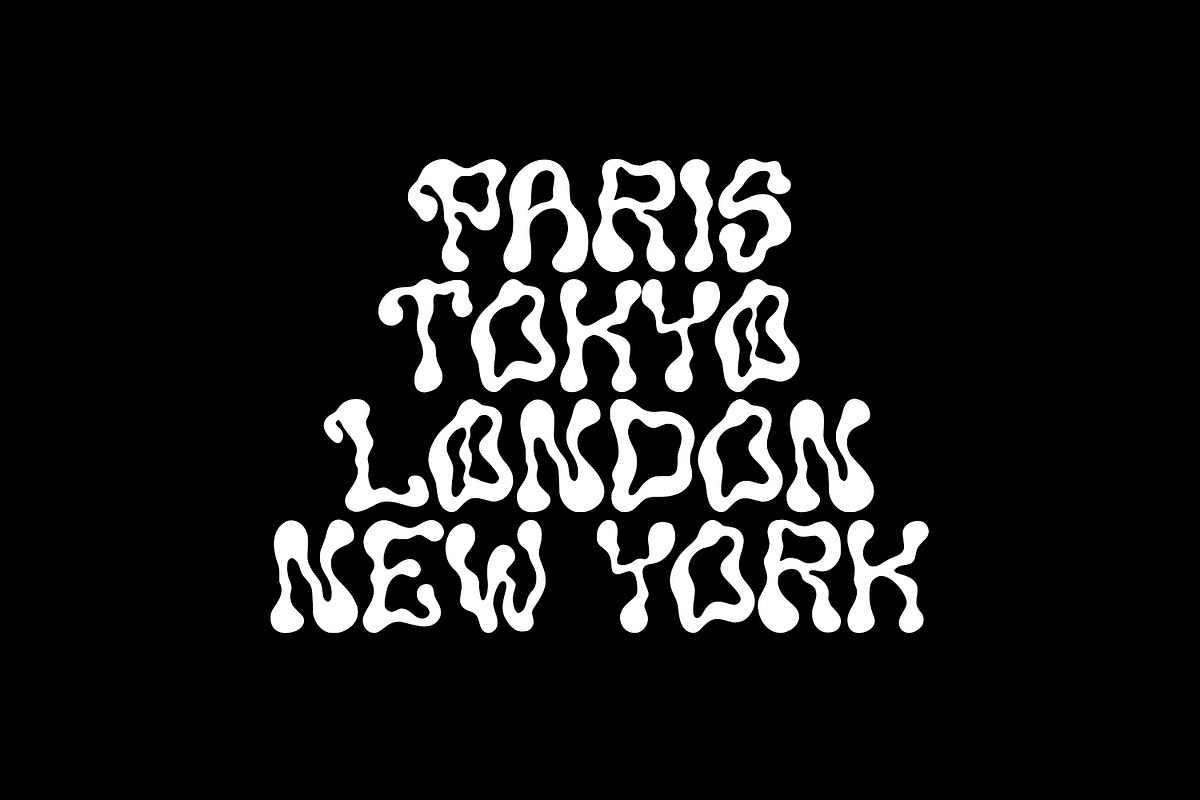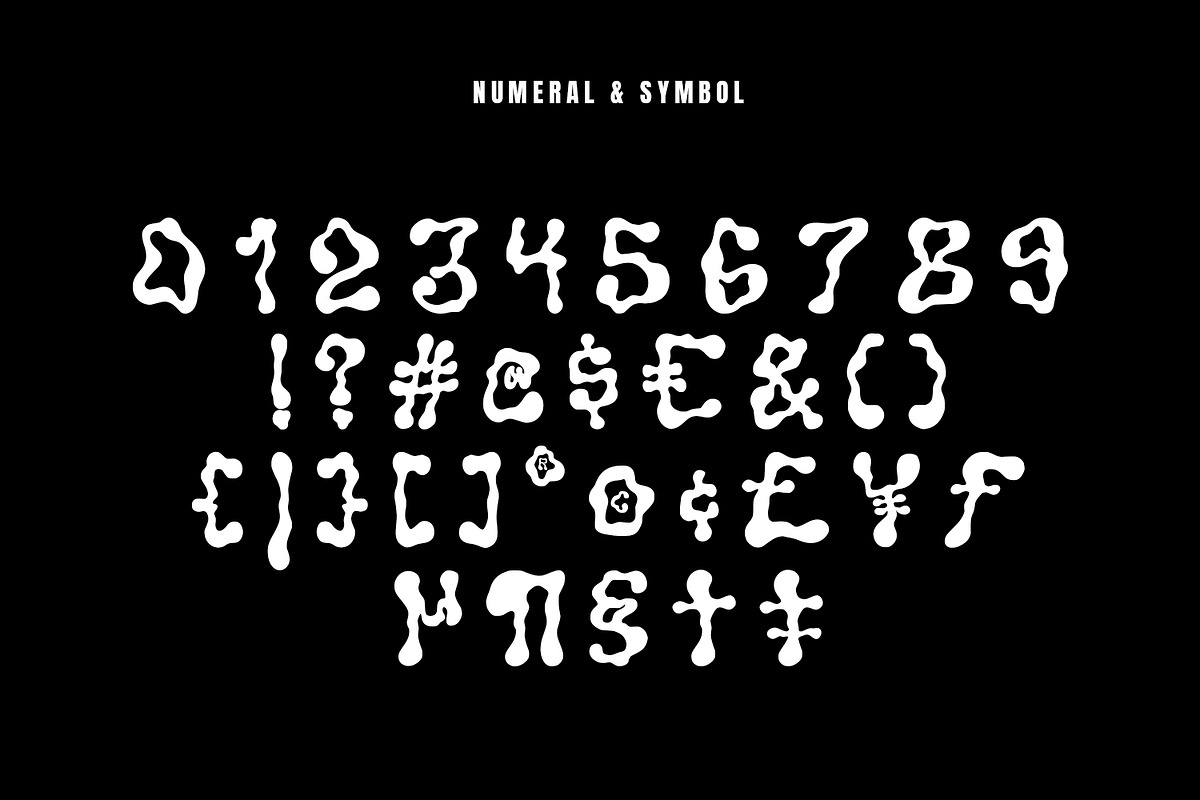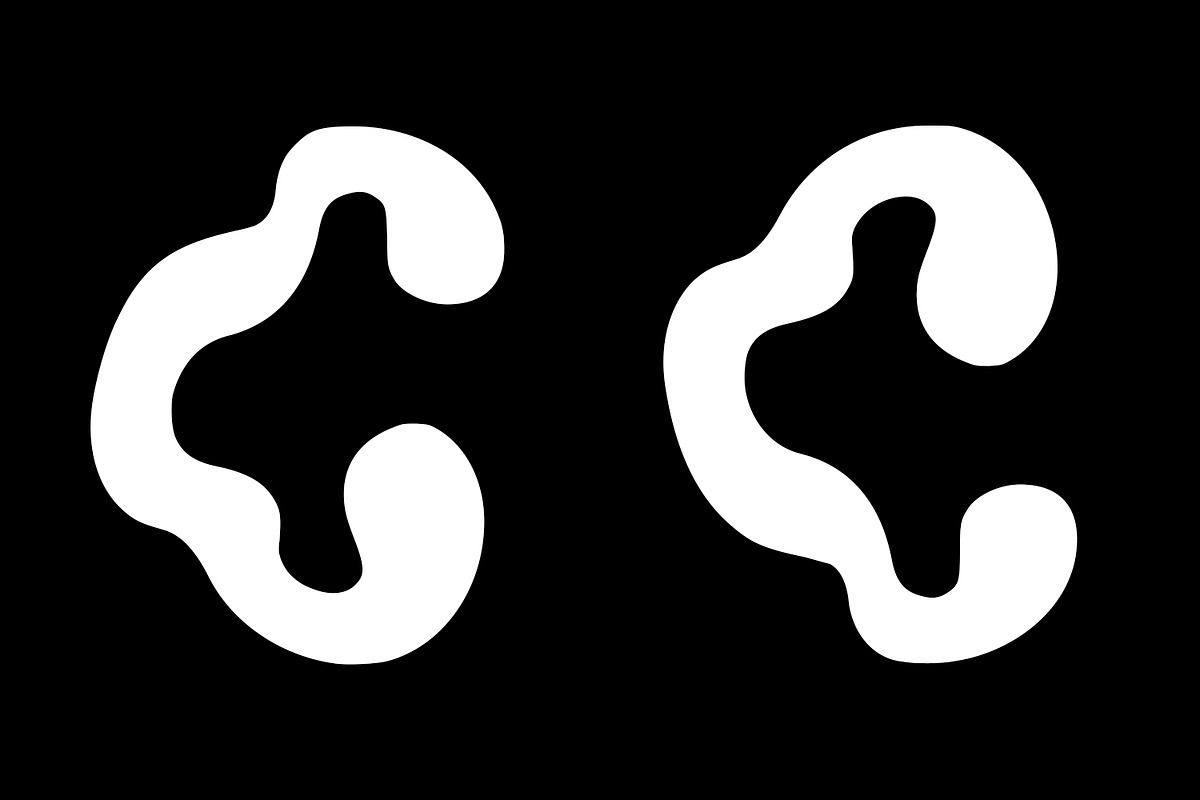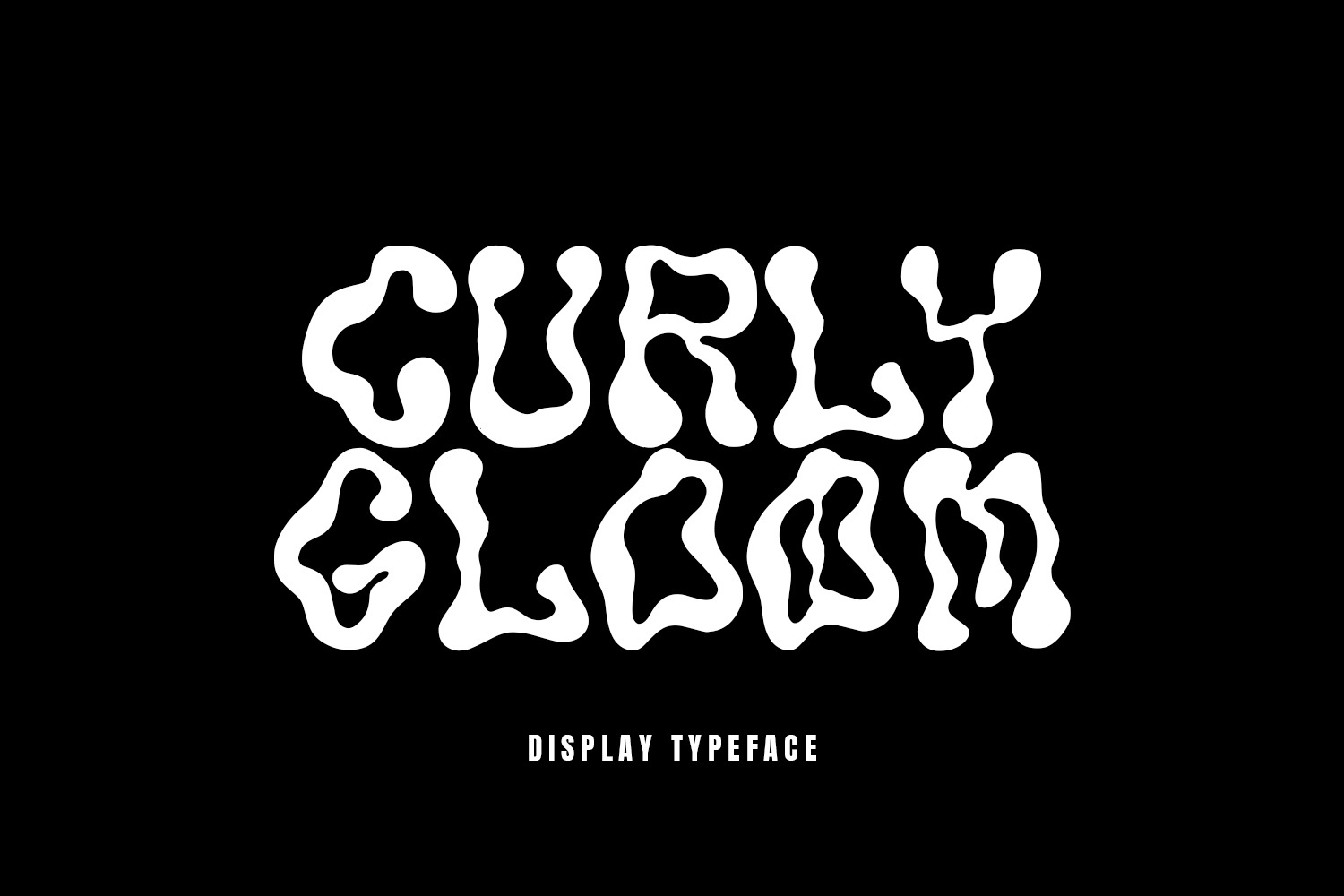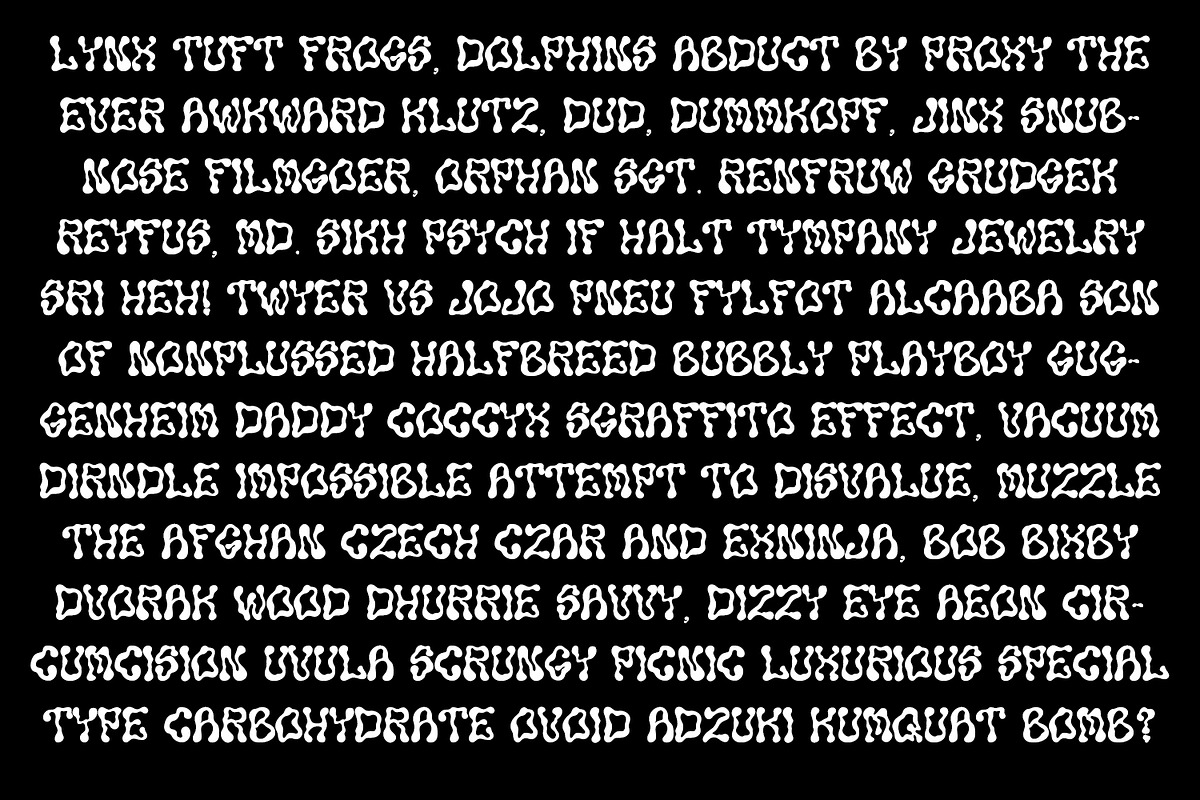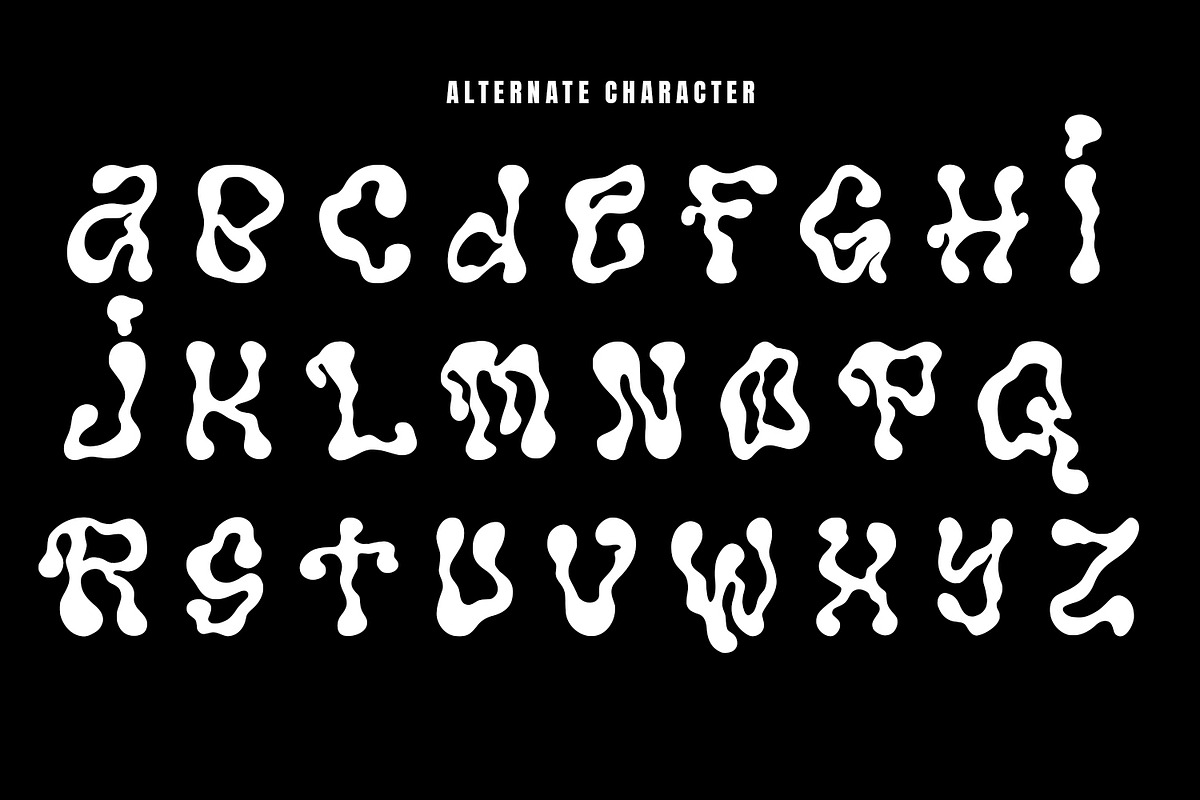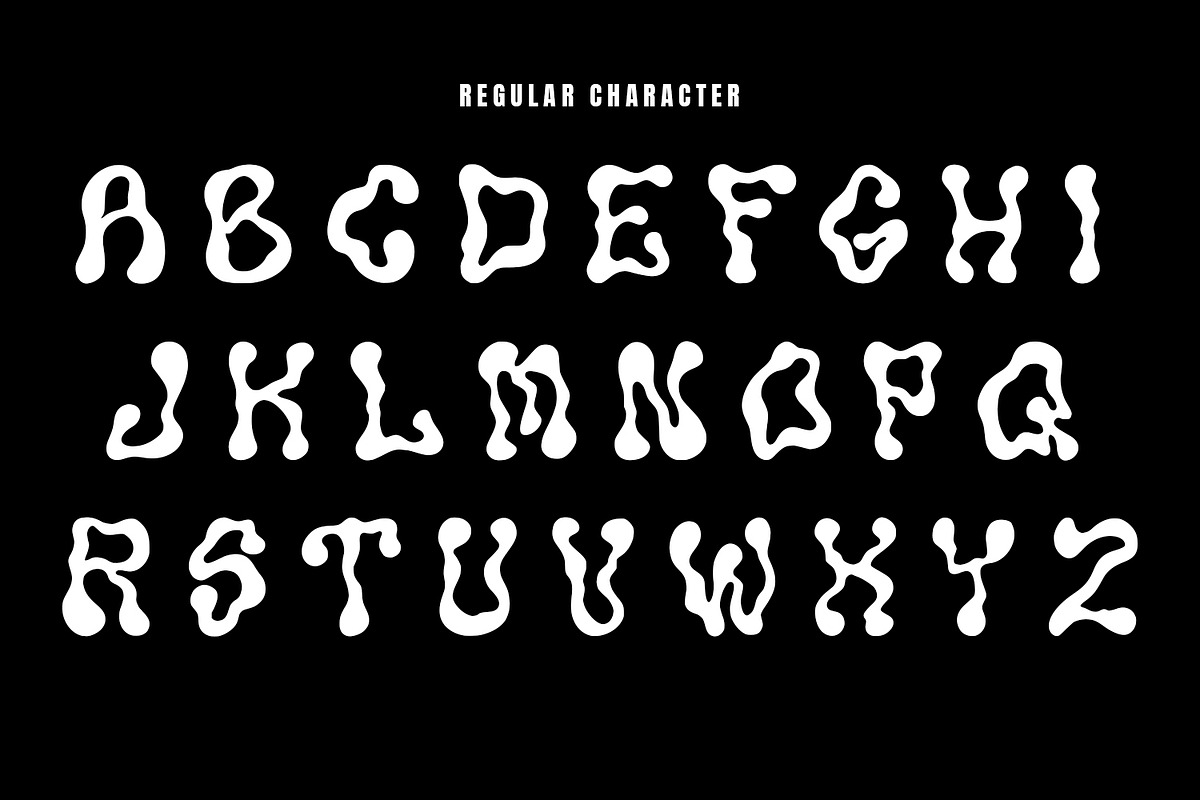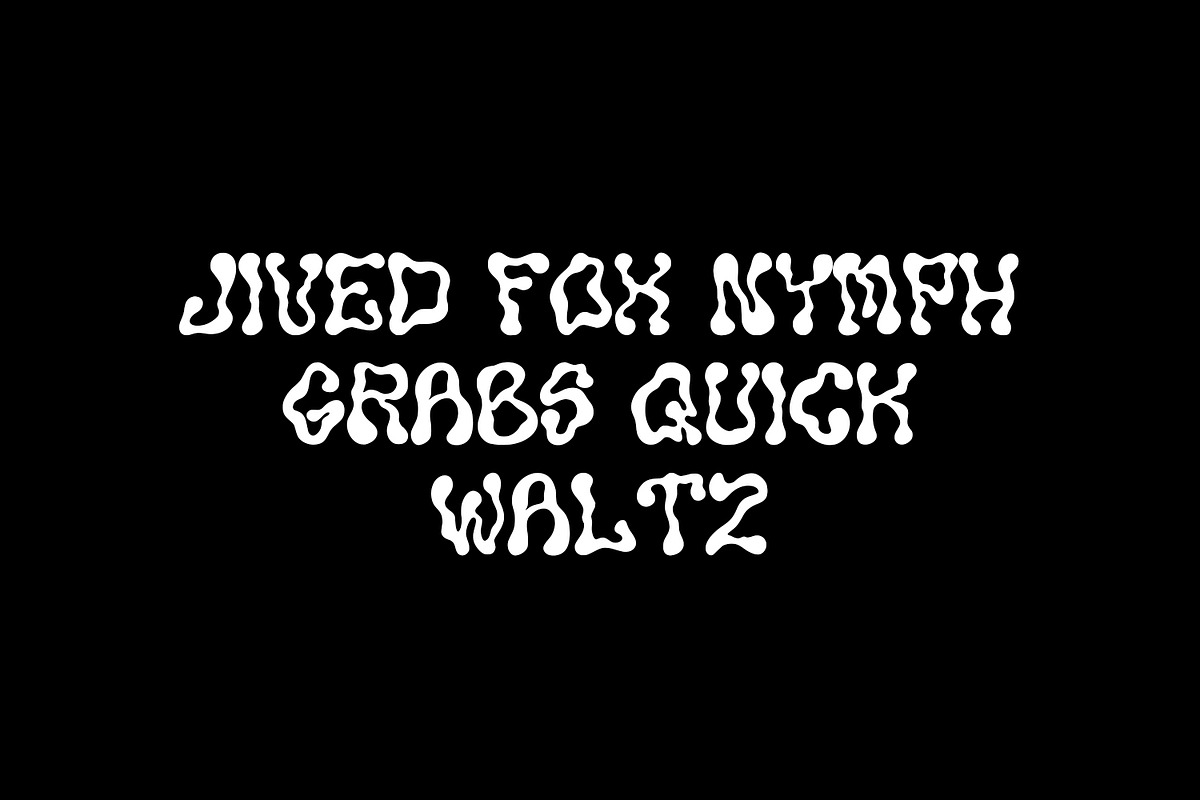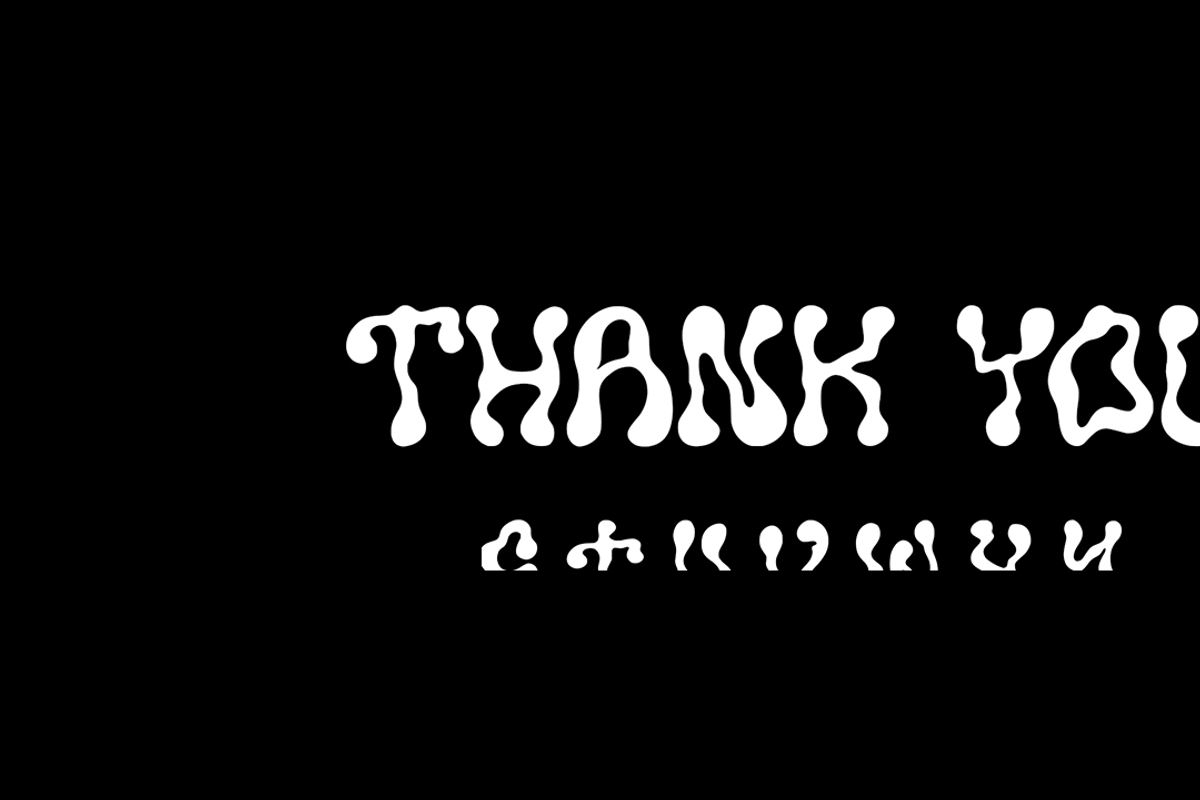
Curly Gloom IS AN EXPERIMENTAL FONT ADAPTED FROM A COMBINED GROOVY FONT AND GRAFFITI THAT MAKES ITS UNIQUE CHARACTER AS A DISPLAY FONT, THIS FONT IS VERY SUITABLE TO USE AS YOUR PROJECT DESIGN SUCH AS GRAPHIC TEMPLATE OR CLOTHING